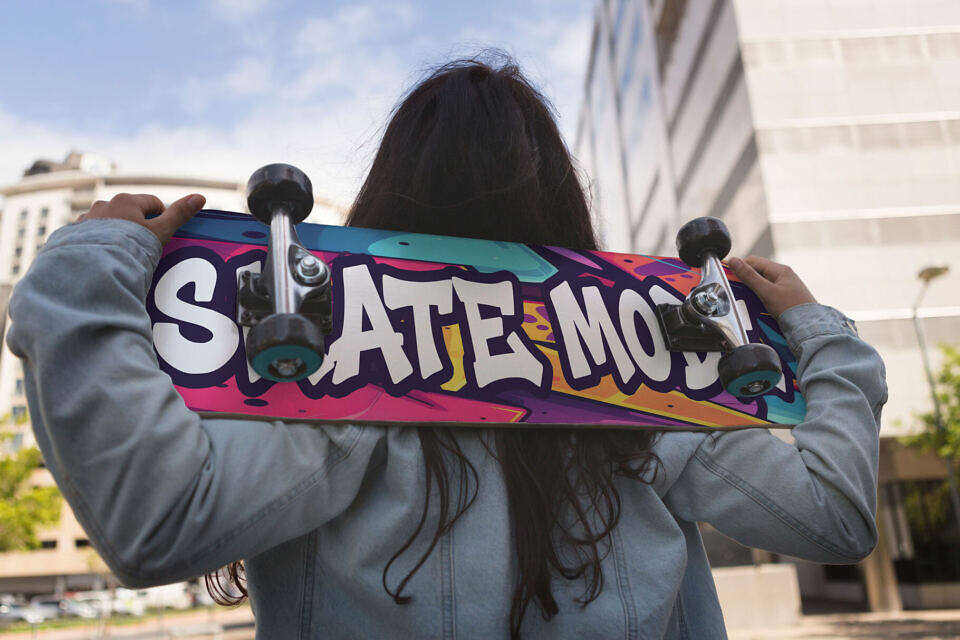
Grime Slime is a bold and expressive melted graffiti font designed to bring toxic, slimy, and underground energy into modern typography. Inspired by melting paint, dripping slime, and raw street art aesthetics, this font captures the chaos and attitude of urban culture. With two distinct styles — Clean and Melted, Grime Slime gives designers full control over how aggressive or subtle their graffiti typography appears.
As a melted font with graffiti influence, Grime Slime is perfect for projects that demand attention. Its thick uppercase letterforms feel heavy, dangerous, and alive, making every word look like it’s melting off the surface. This font is not polite, minimal, or quiet — it is loud, gritty, and unapologetically street.